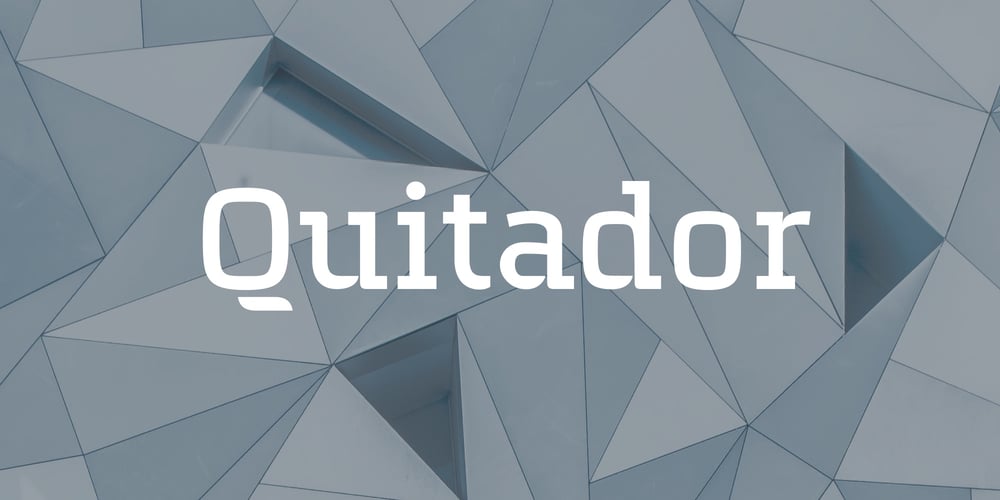
Quitador Font Family was designed by Arne Freytag and published by Linotype. Quitador contains 14 styles and family package options. Quitador, designed by German designer Arne Freytag (b. 1967), is a constructed Slab Serif typeface family with a humanistic touch especially the Italics. The typeface family has a high x-height, respectively shorter top and bottom lengths. It is suitable for Reading, Headlines, Poster, Magazines, Advertising, Logos Web and Mobile Devices.